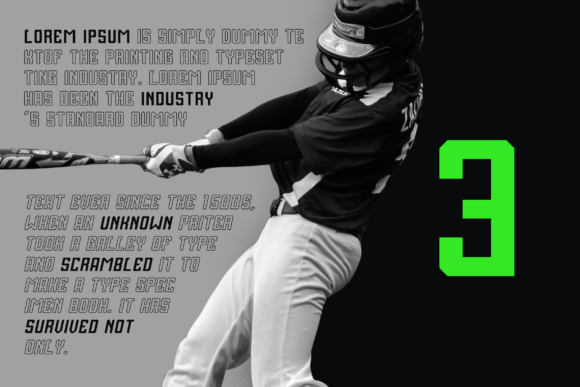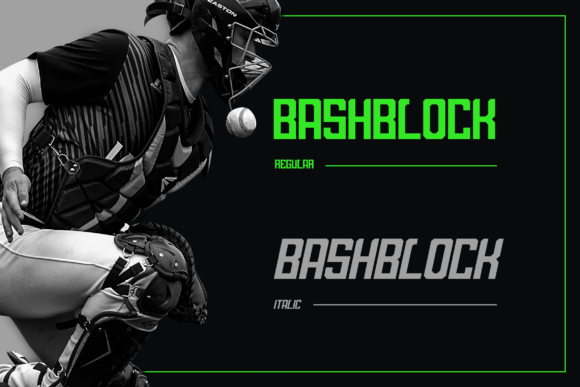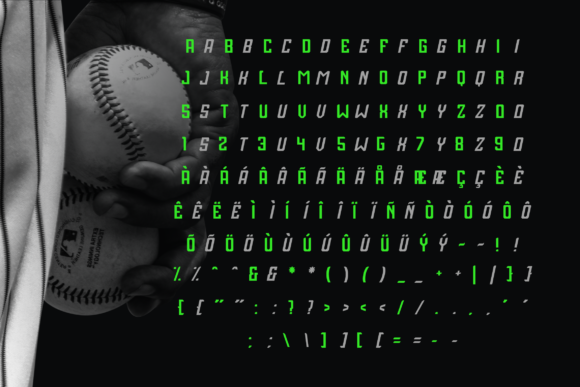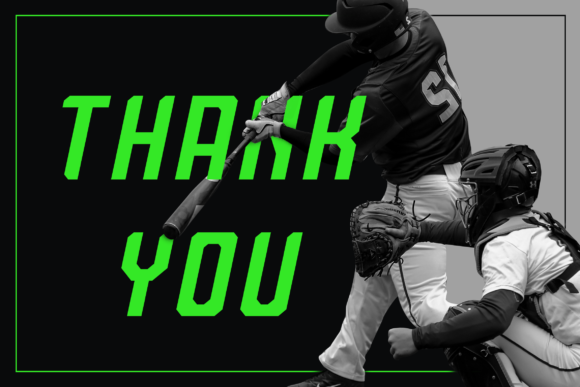
The Ultimate Display Font: Unleashing the Energy of BashBlock
As a designer, I’ve had my fair share of frustrating moments while working on a project. One of those moments was when I was tasked with creating a bold, eye-catching poster for a music festival. I spent hours scouring the internet for the perfect font, but nothing seemed quite right. That was until I stumbled upon BashBlock, a one-of-a-kind display font that’s full of energy and modern vibes. In this article, I’ll share my experience with BashBlock, its features, and how to make the most of it in your designs.
An Honest Review of BashBlock
So, what makes BashBlock so special? Let’s dive into the good stuff and some of its quirks.
What I Love About BashBlock
- ✨ Unique and modern design: BashBlock’s geometric shapes and bold lines make it perfect for creating eye-catching headlines and titles.
- ✅ Highly versatile: This font can be used for a wide range of design projects, from posters and flyers to social media graphics and branding.
- 💥 Full of energy: BashBlock’s dynamic and playful vibe is sure to capture the attention of your audience.
While BashBlock is an amazing font, there are a few things to keep in mind:
- 🤔 Legibility at small sizes: Like many display fonts, BashBlock can be a bit tricky to read at smaller sizes. Make sure to use it at larger sizes or adjust the tracking and kerning accordingly.
- ⚠️ Limited use in body text: Due to its bold and geometric design, BashBlock is best suited for headlines and titles. For body text, consider pairing it with a more traditional font.
The Designer Inspiration Behind BashBlock
While the true story behind BashBlock’s creation is unknown, it’s easy to imagine that the designer was inspired by the urban landscape and modern architecture. The font’s geometric shapes and bold lines evoke a sense of energy and dynamism, making it perfect for designs that need to stand out.
Q: What type of projects is BashBlock best suited for?
A: BashBlock is perfect for creating bold and eye-catching headlines, titles, and posters for music festivals, concerts, and other events.
Q: Is BashBlock a script font?
A: No, BashBlock is a sans-serif display font with geometric shapes and bold lines.